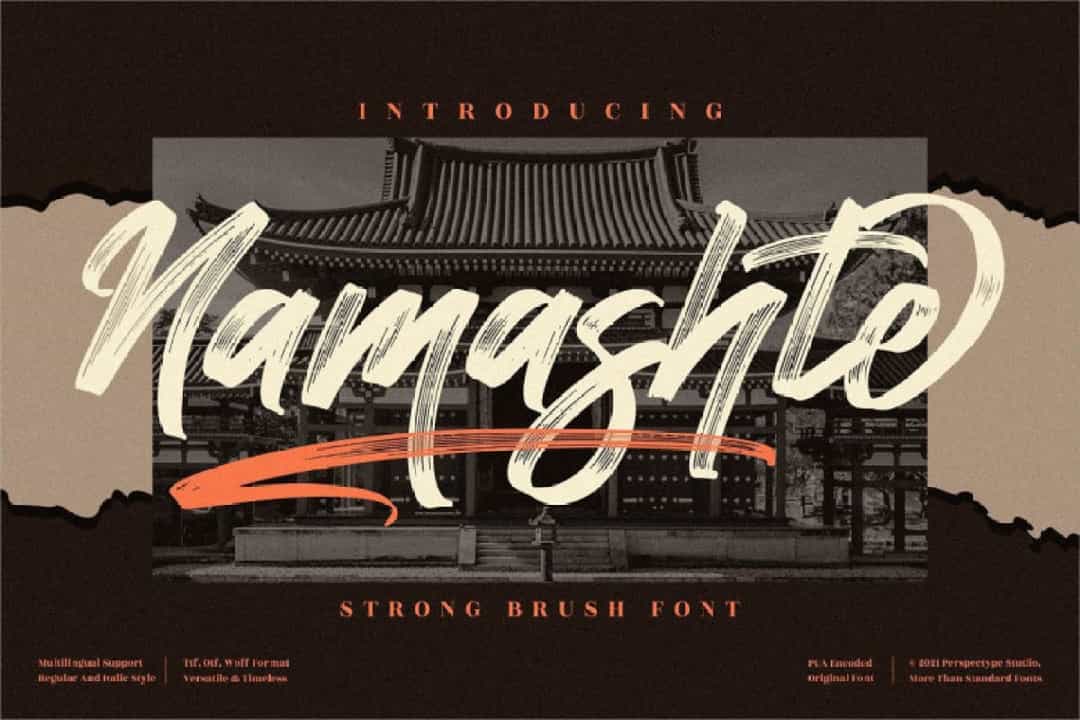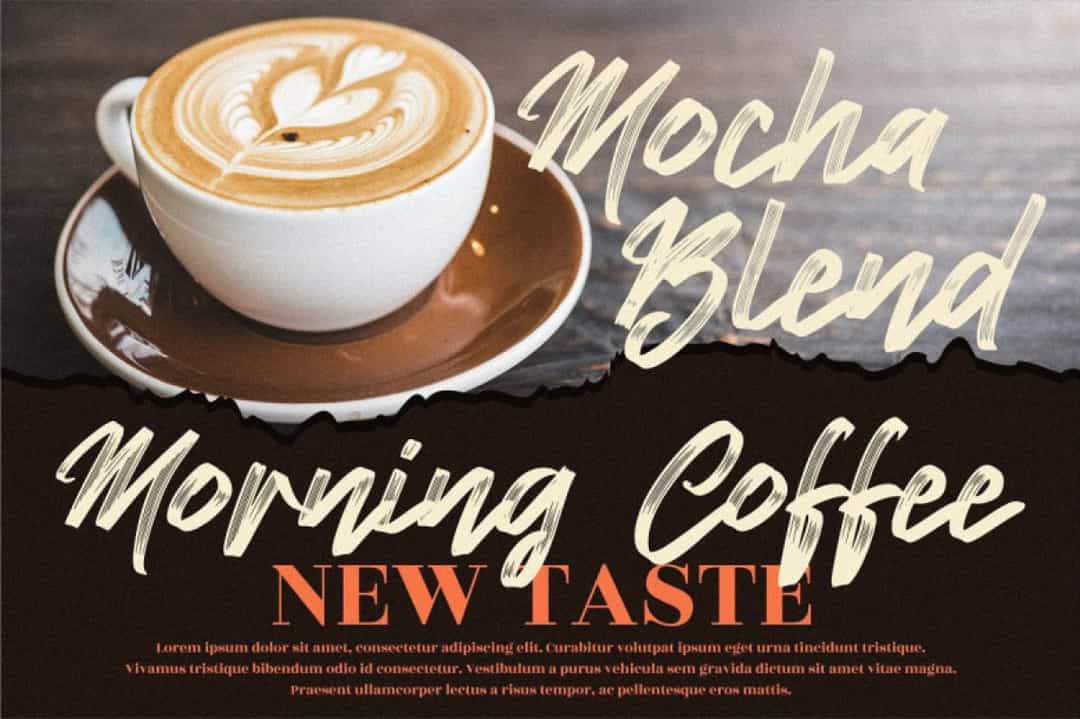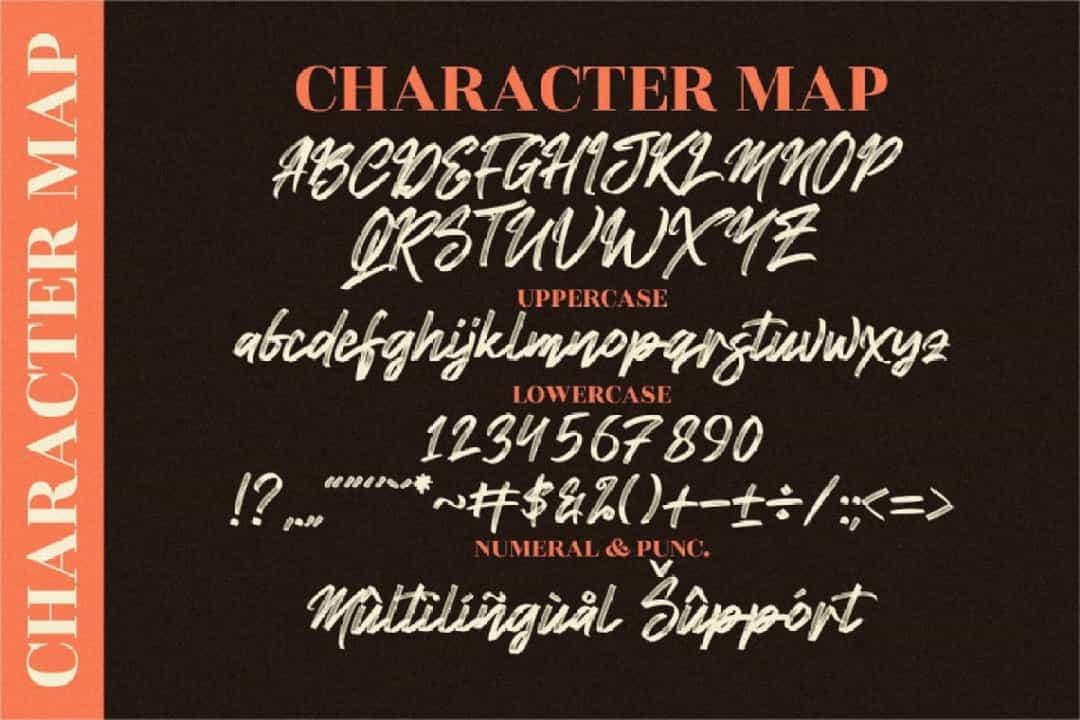
Namashte is a dynamic and contemporary brush script typeface. Perfect for a wide range of designs needing something extra special like wedding invitations, thank-you cards birthday cards wedding logos and more, this typeface offers something truly original.